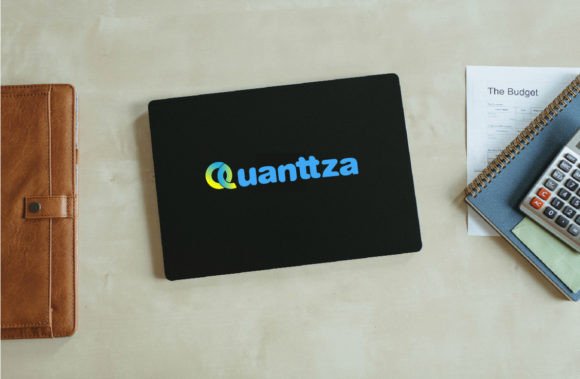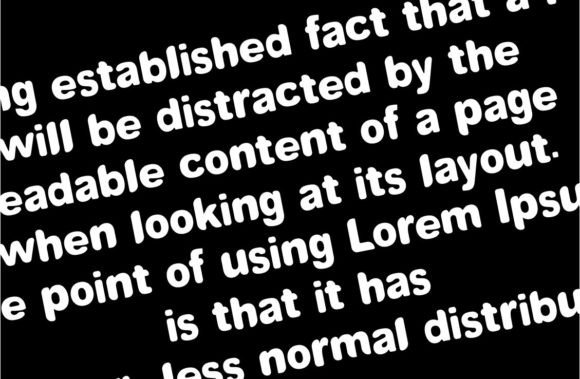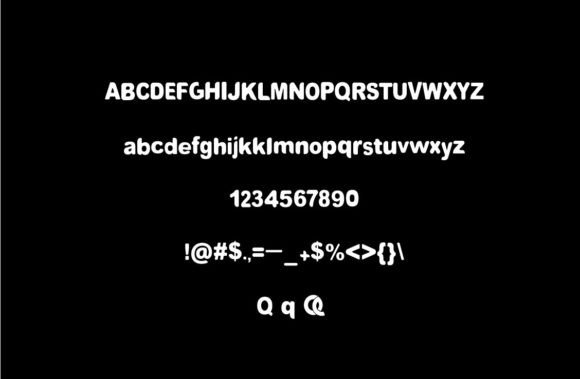
Introduction to Quanttza Font
Quanttza is a modern and stylish display font.
Key Features of Quanttza Font
Why Choose Quanttza Font?
Quanttza Font offers exceptional quality and versatility, making it a valuable addition to your design toolkit. Whether you’re creating for personal projects or commercial use, Quanttza Font delivers professional results.